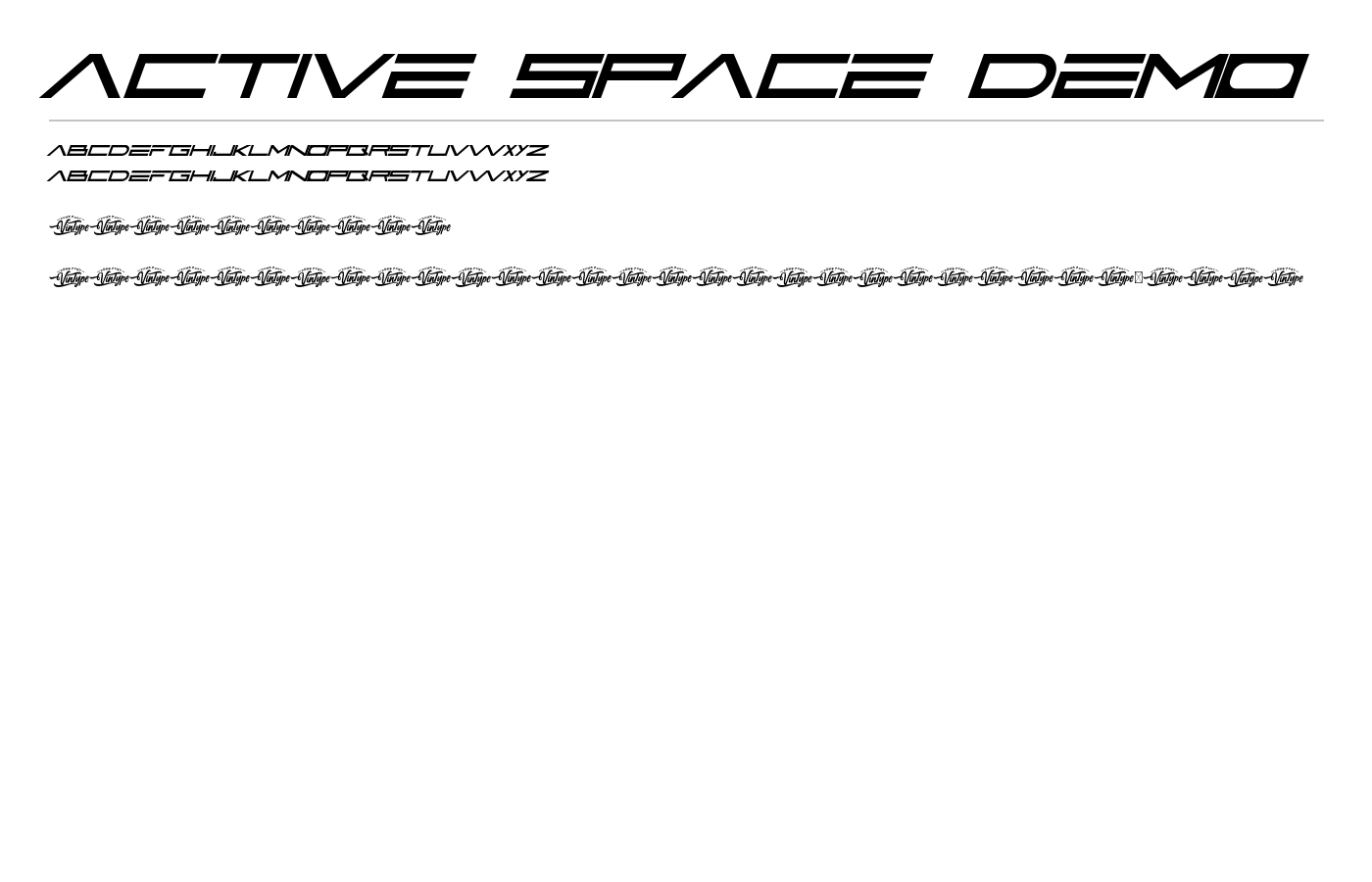
Active Space Demo is a sleek, futuristic sans serif font with a condensed, angular design that evokes speed and modern technology. Its sharp, geometric letterforms and high slant give it an energetic and dynamic feel, making it perfect for science fiction themes, sports branding, and tech-focused projects. This font works best in headlines, logos, and display uses where a bold, cutting-edge look is desired.
Active Space Demo Font
About Active Space Demo Font
| Font family | Active Space Demo Font |
| Designer | M. Lukman F & Sarah Suci P |